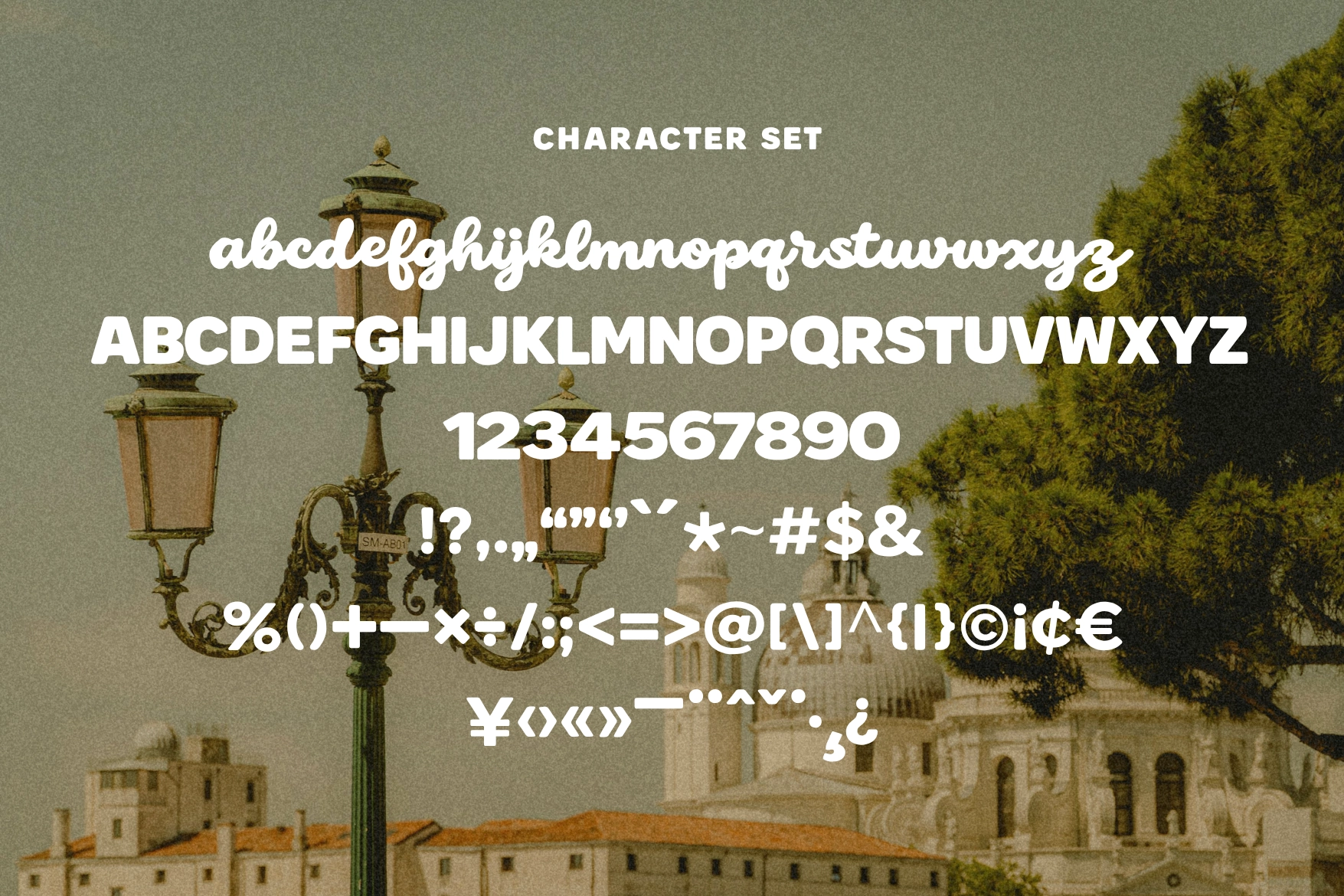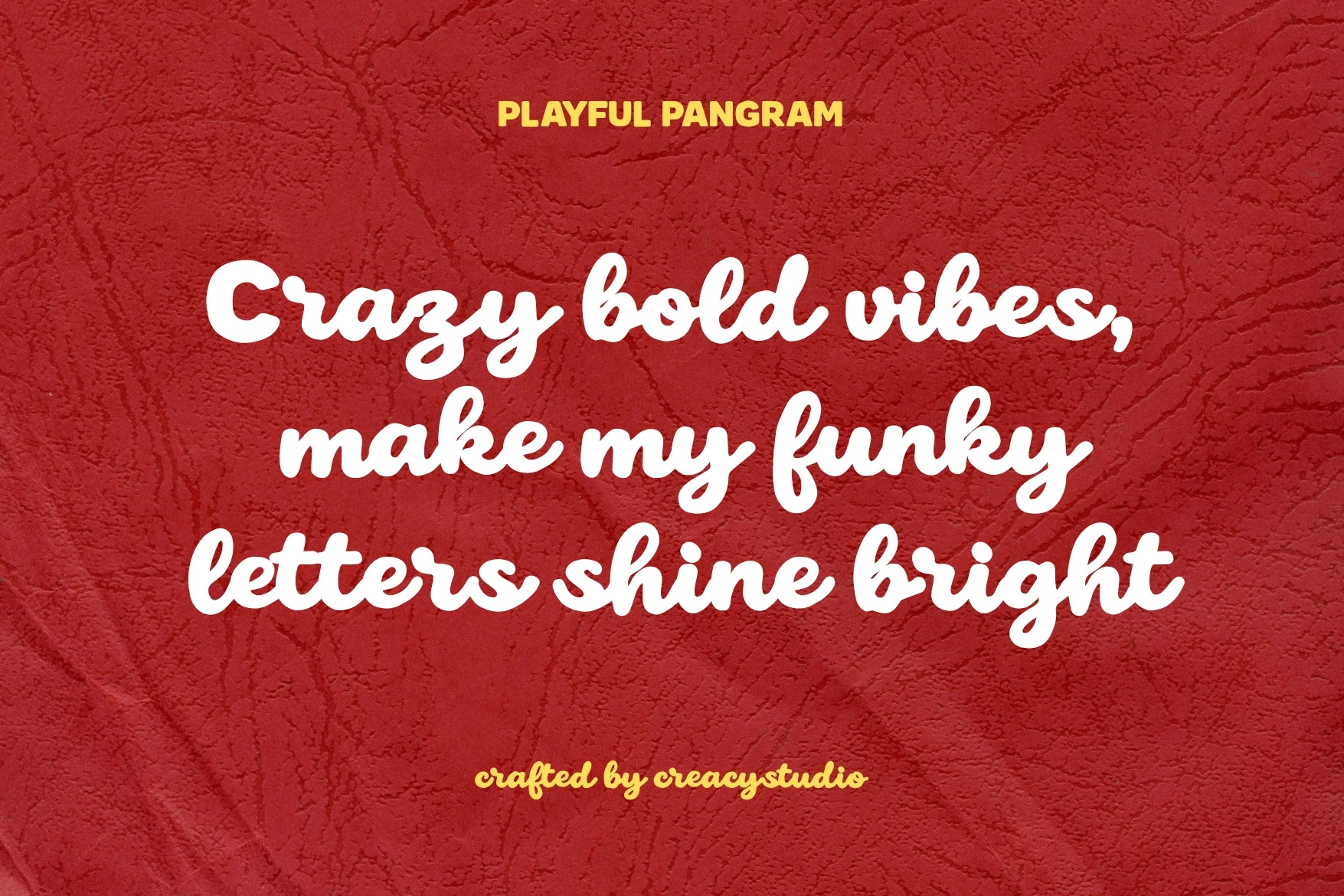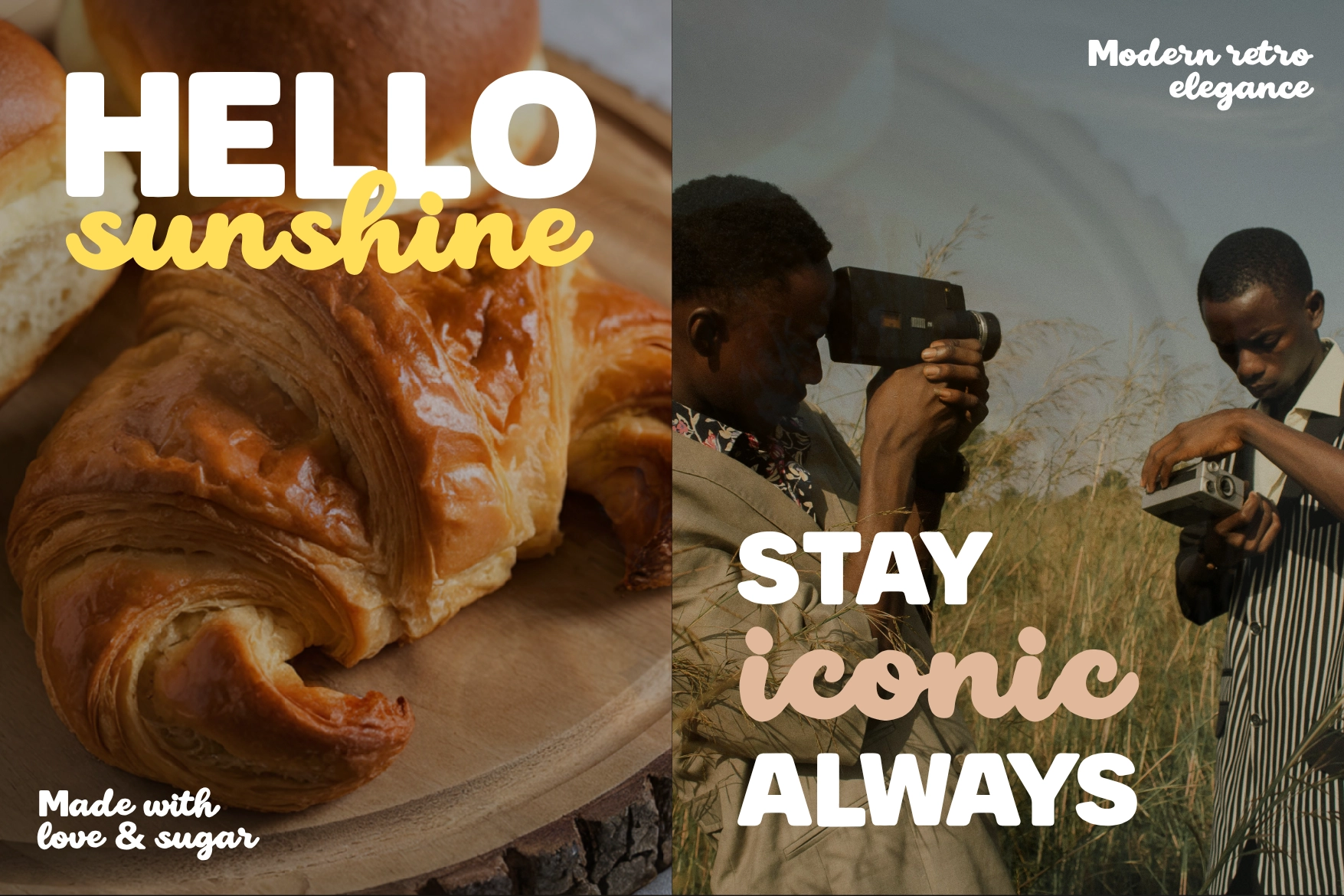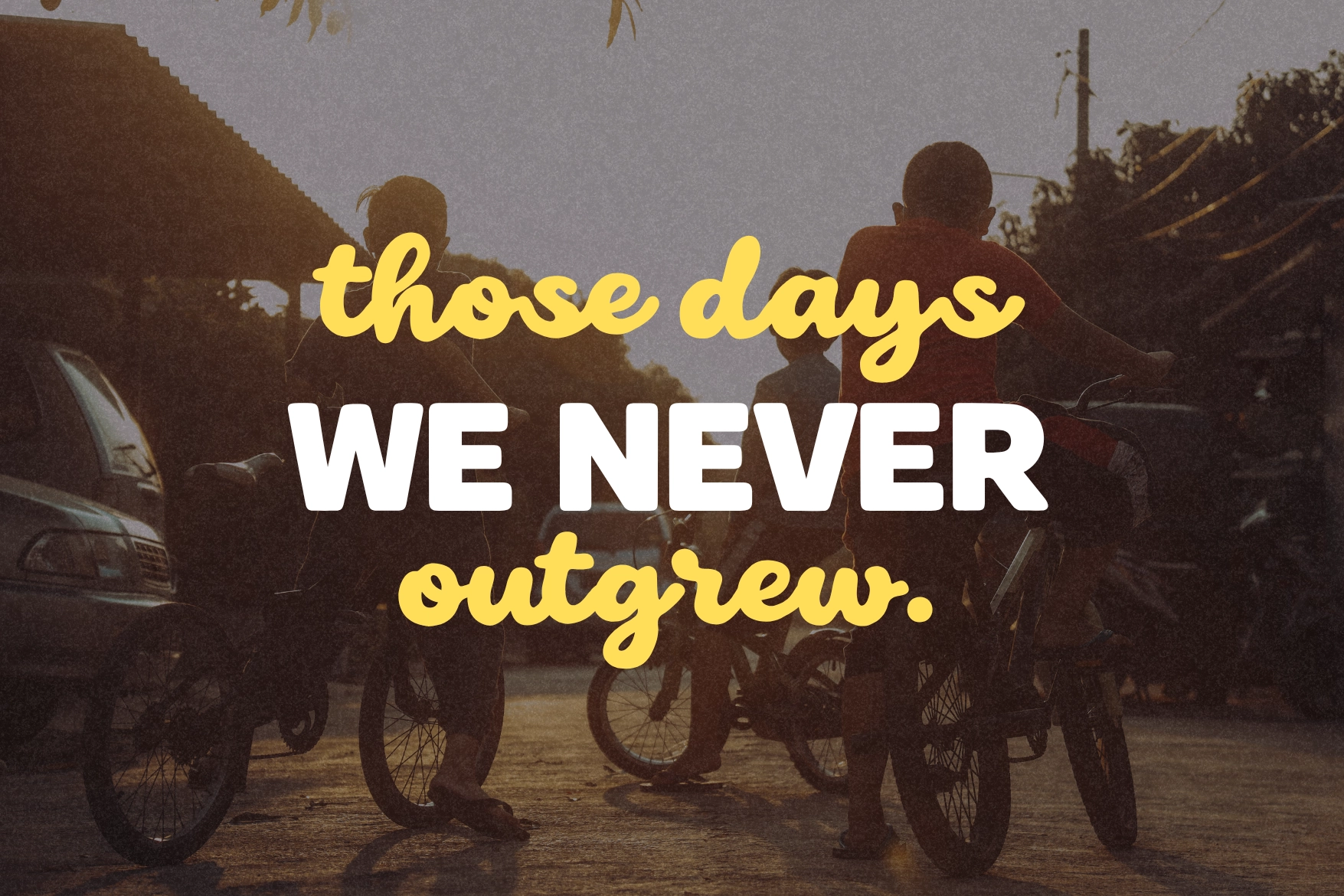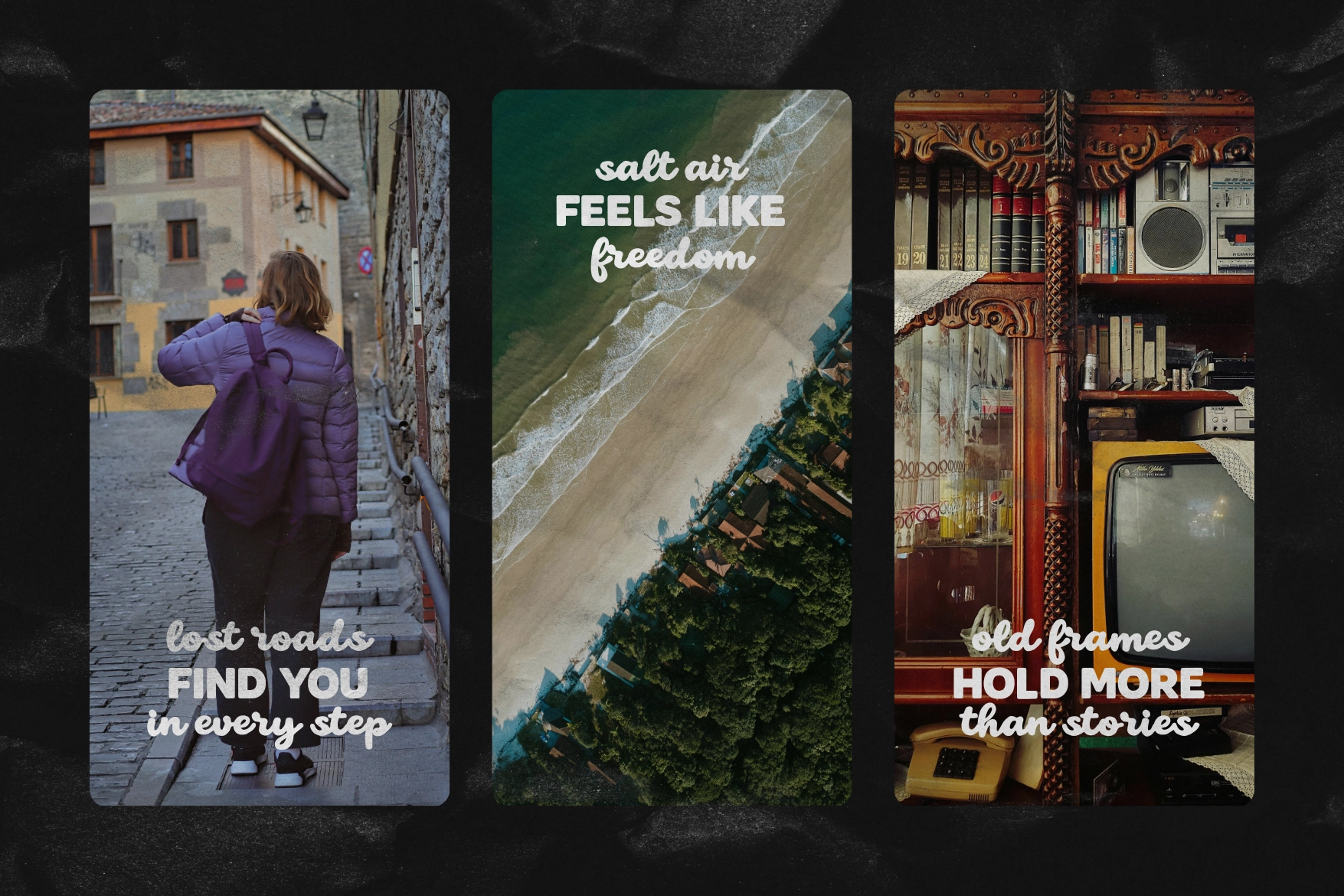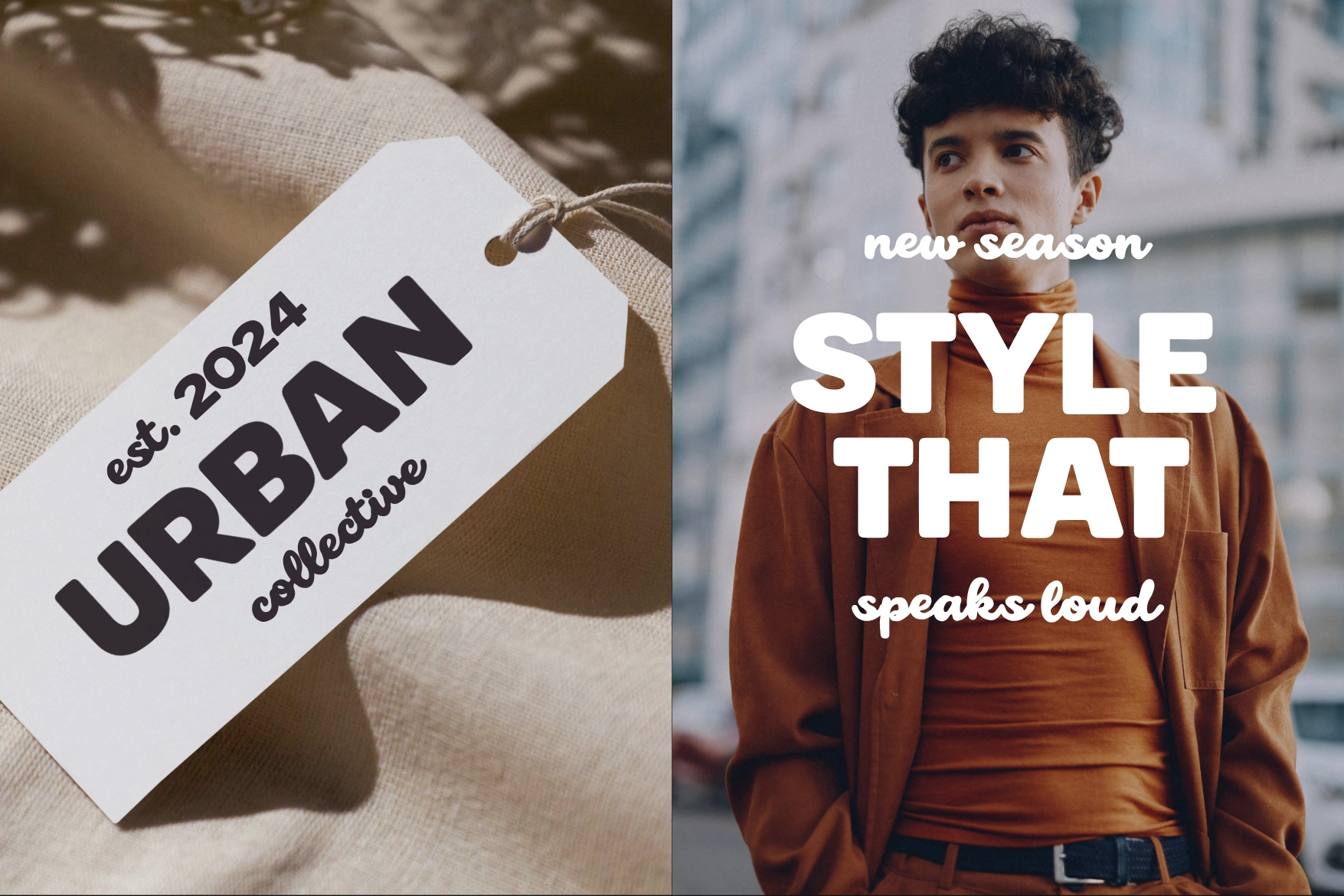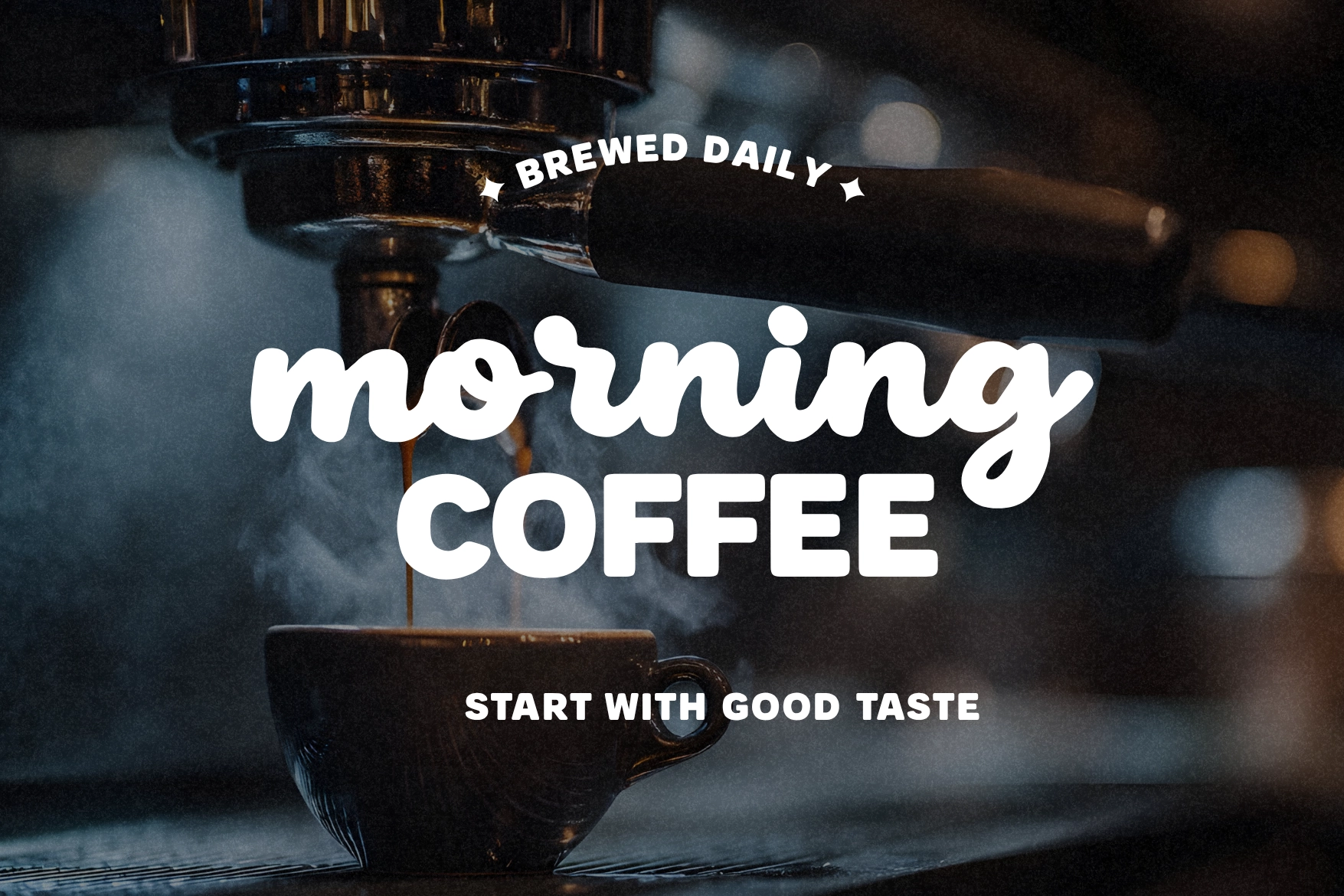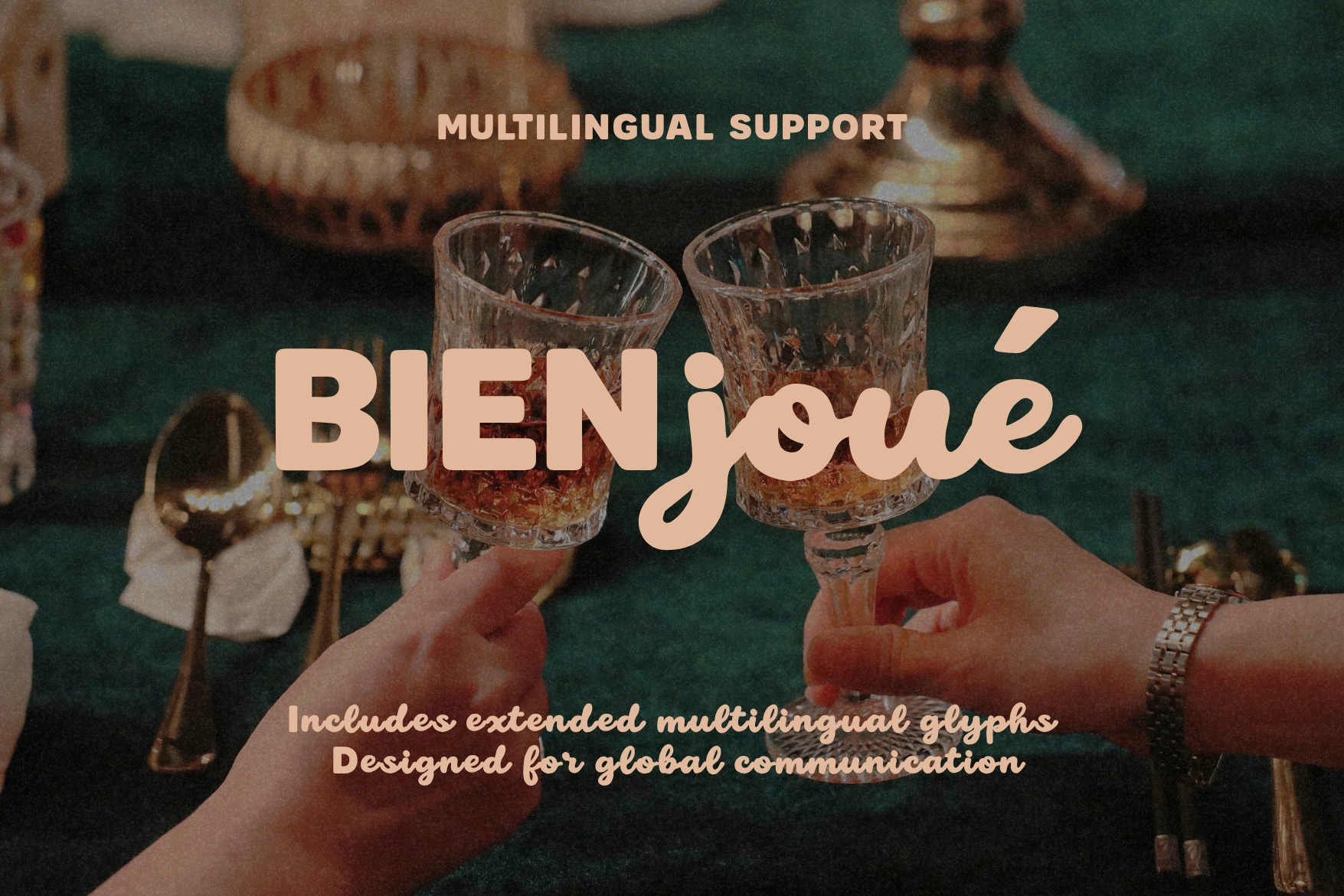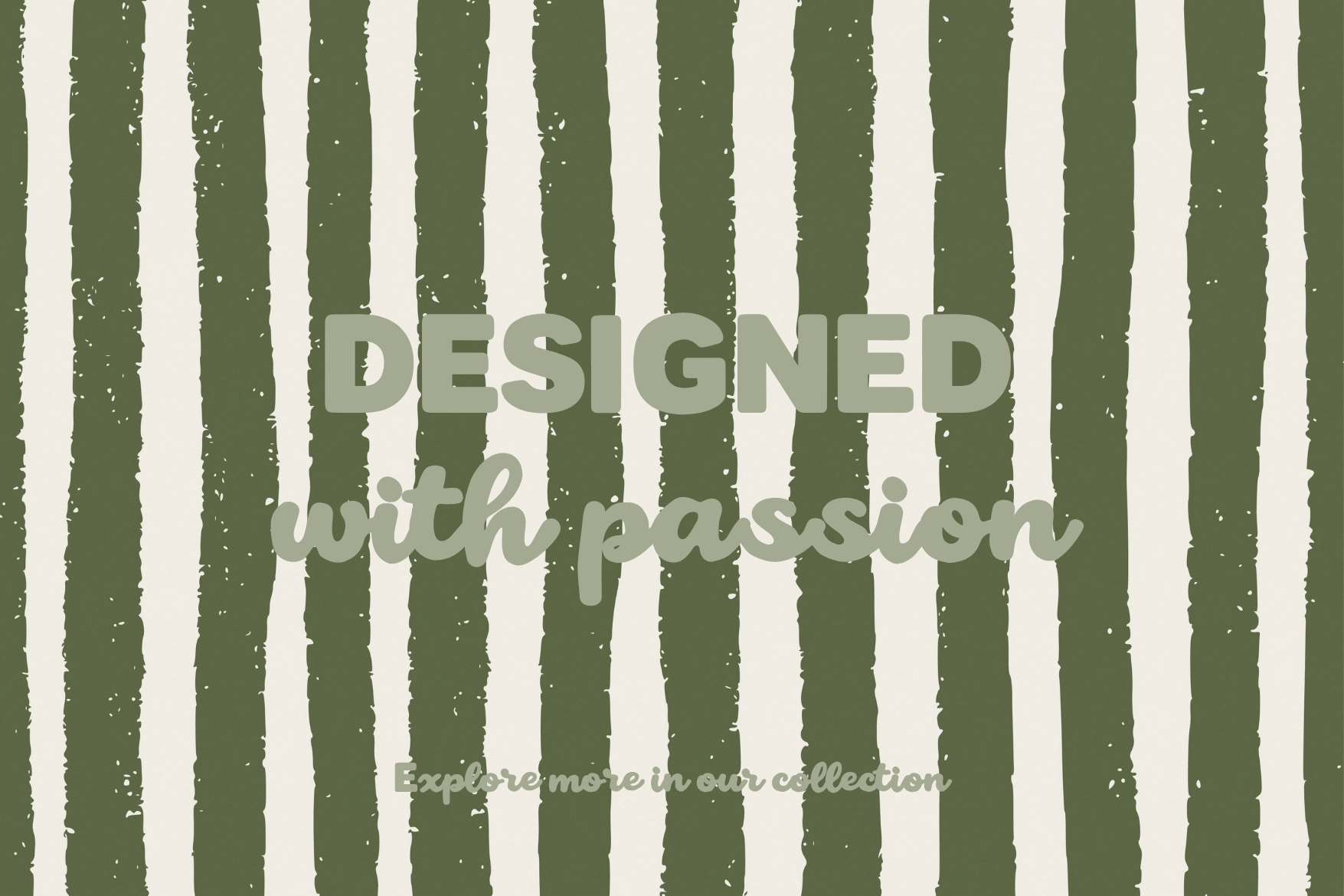
Sunkind Display – Playful Retro Duo Font
Sunkind Display
This duo retro font pairs a chunky sans serif with a smooth handwritten script for friendly layouts with big personality . The sans brings rounded, bold structure, while the script adds a sunny hand-lettered accent with soft curves and easy charm.
Use Sunkind for cafe branding, bakery packaging, lifestyle logos, social media quotes, Canva templates, poster headlines, magazine spreads, food labels, event graphics, apparel prints, greeting cards, travel content, product tags, and more. The two styles work neatly together: one handles the headline muscle, the other adds the wink.
- 2 styles: Sans, Script